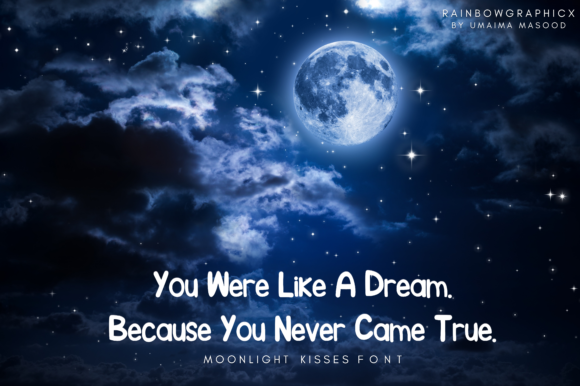
Moonlight Kisses Font
About Moonlight Kisses Font
Moonlight Kisses is a sweet and stunning script with incredible lettering. It’s effortless beauty will take any crafting project to the next level!